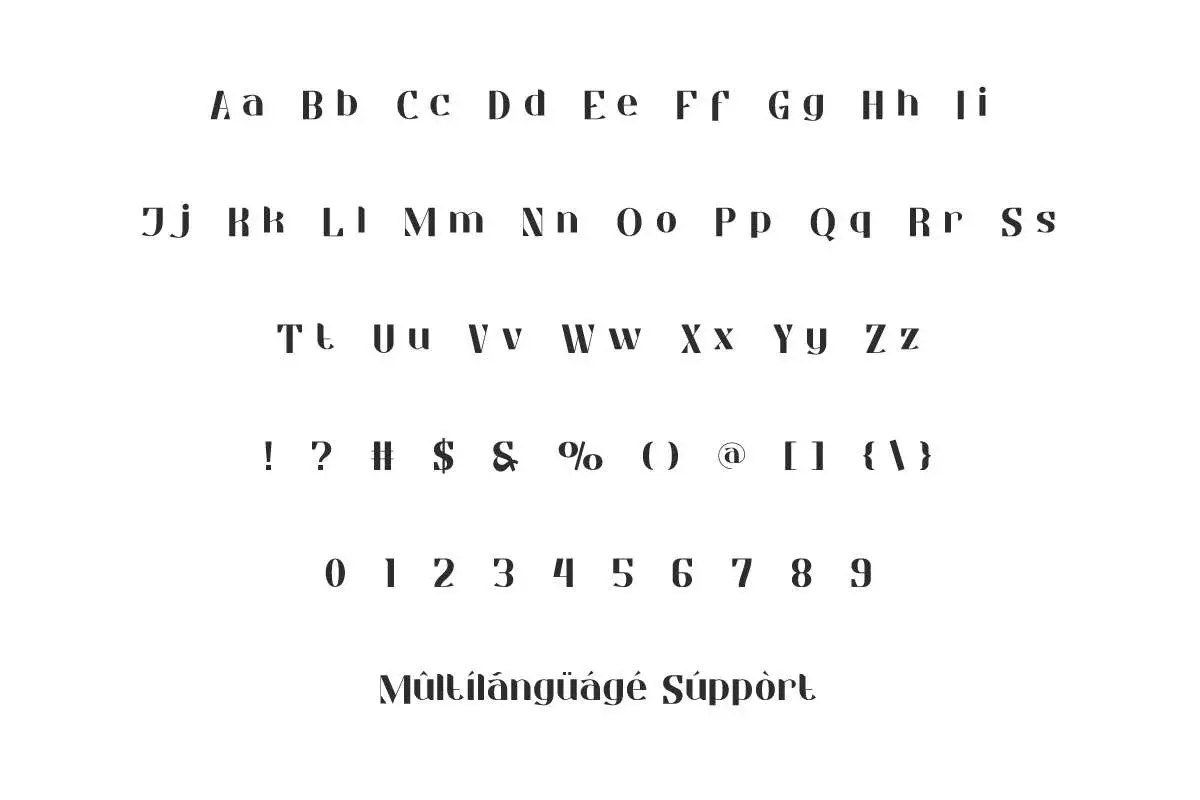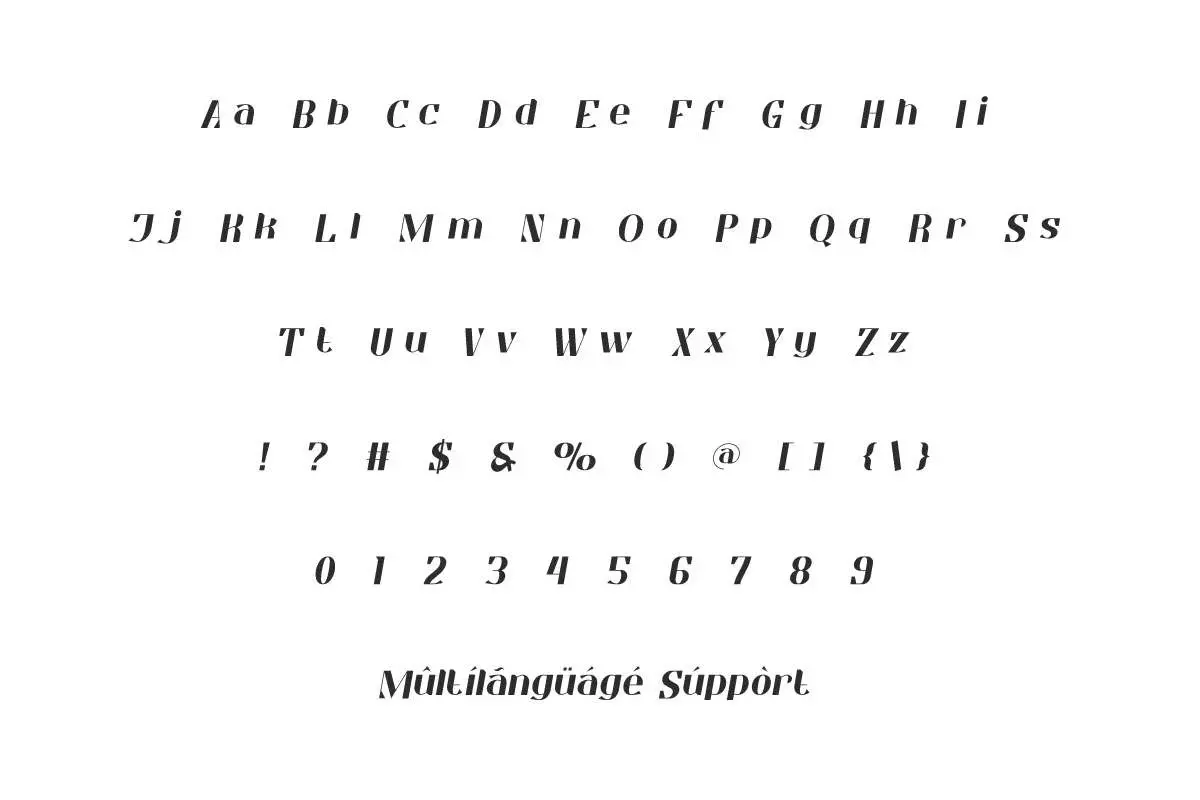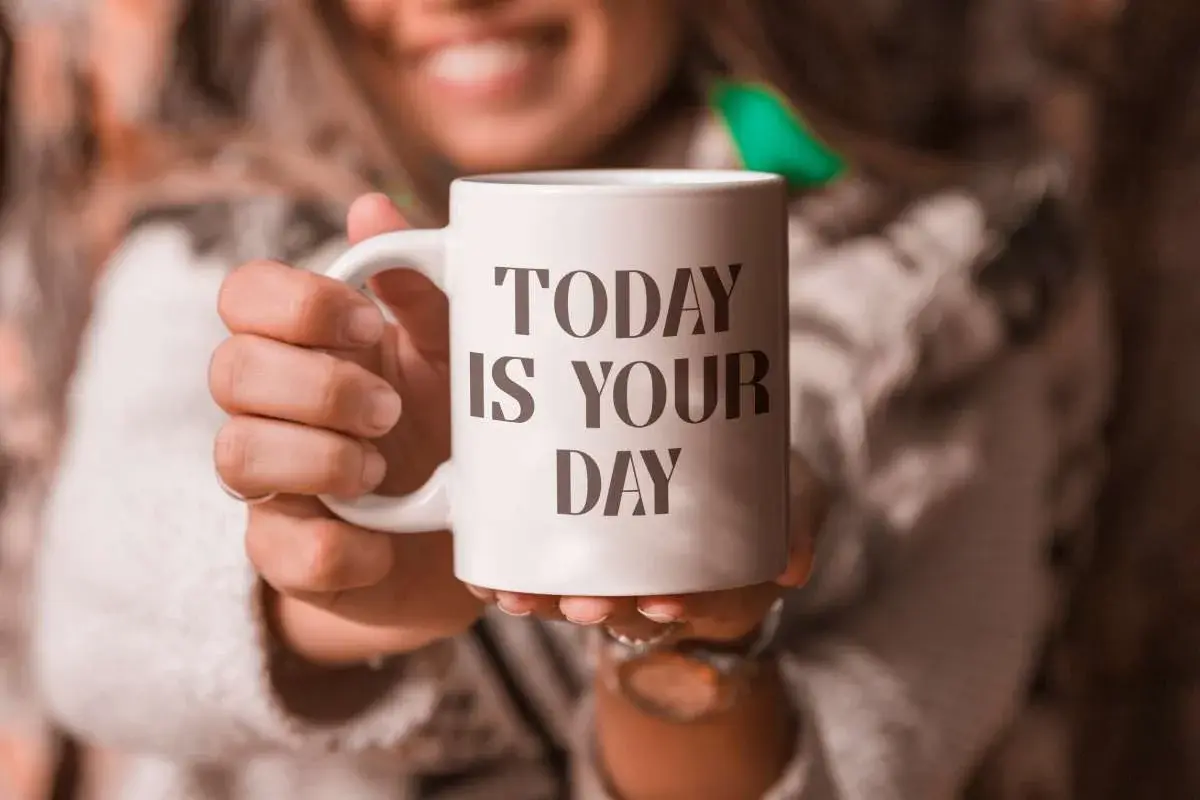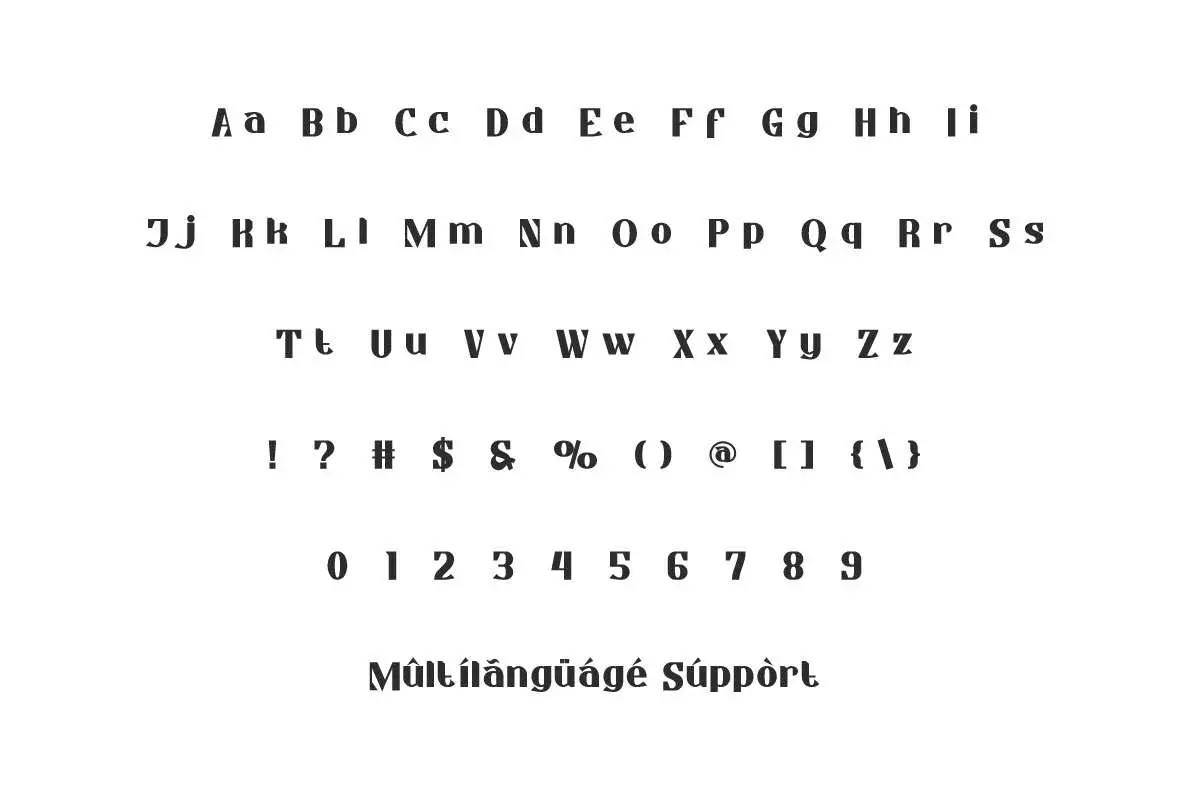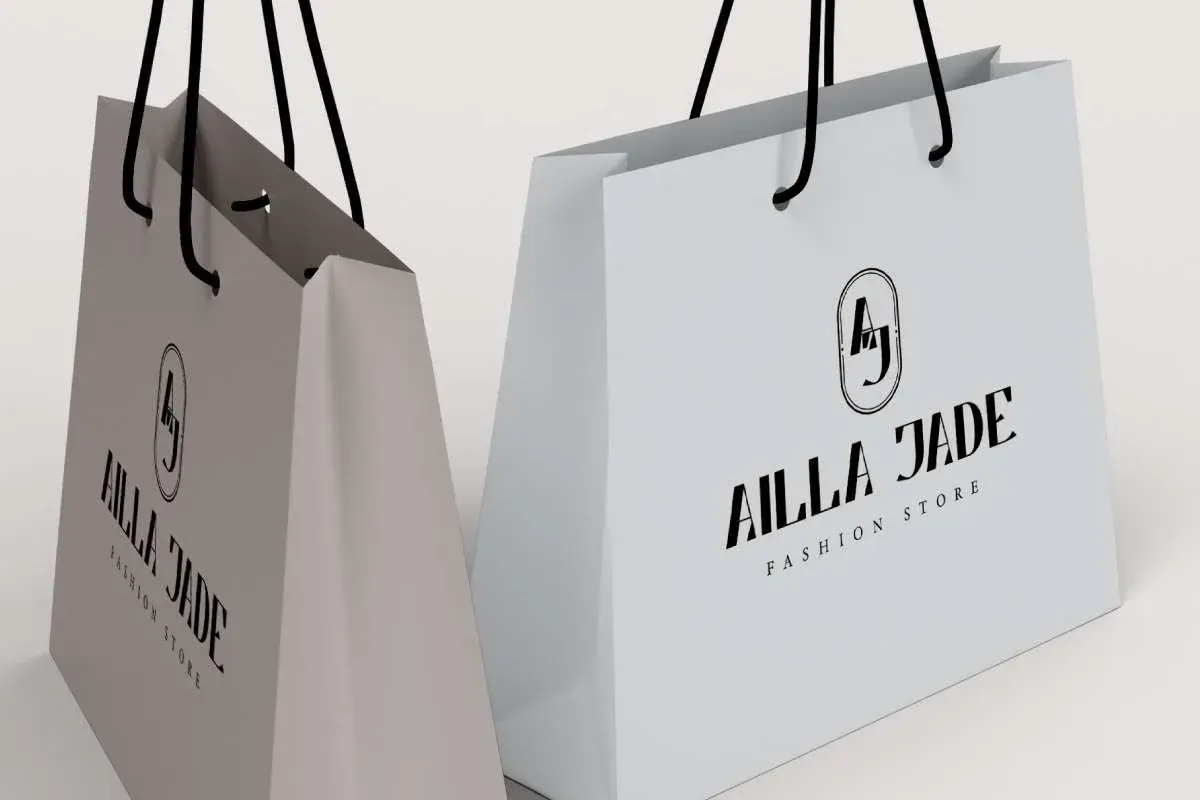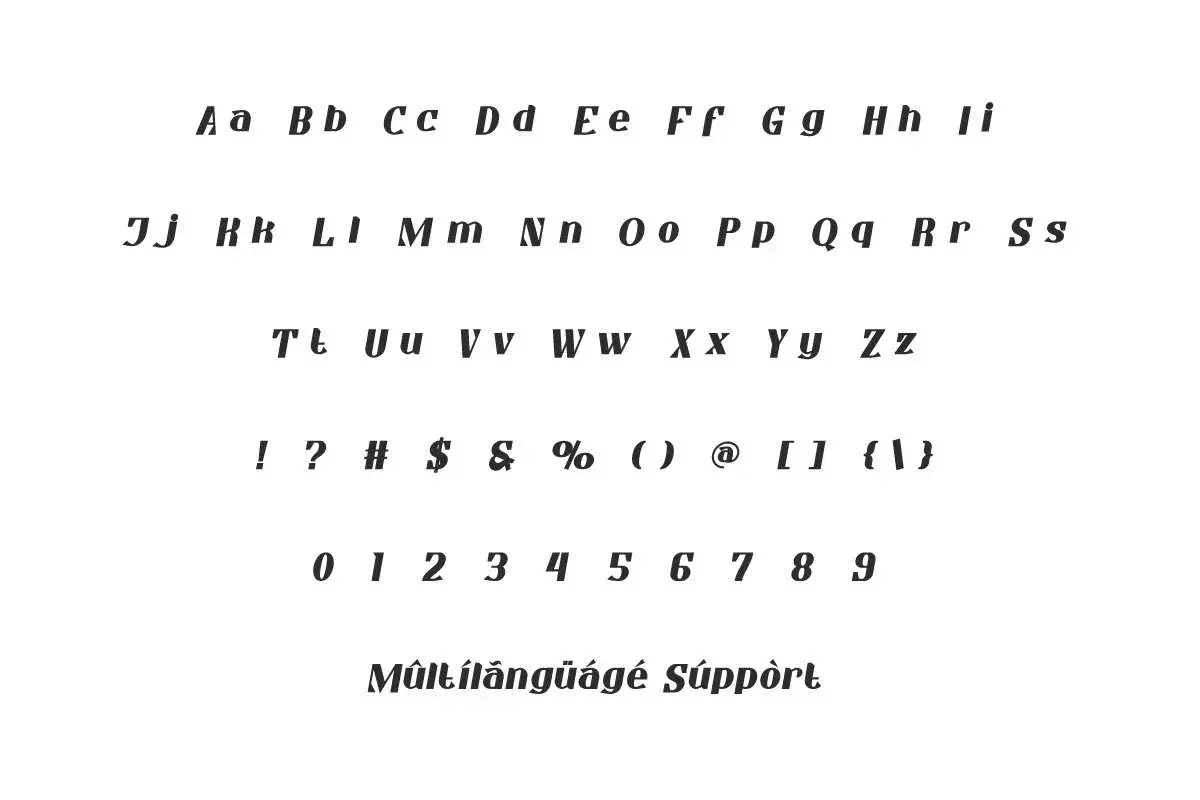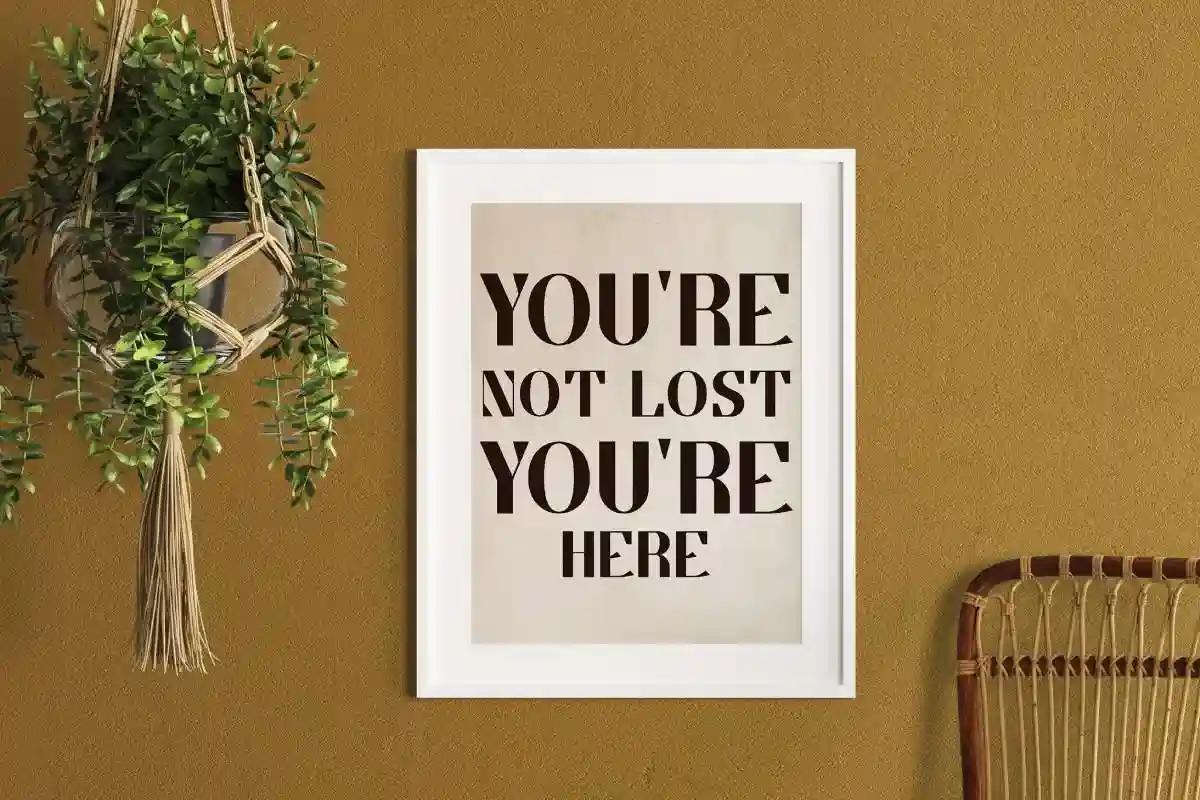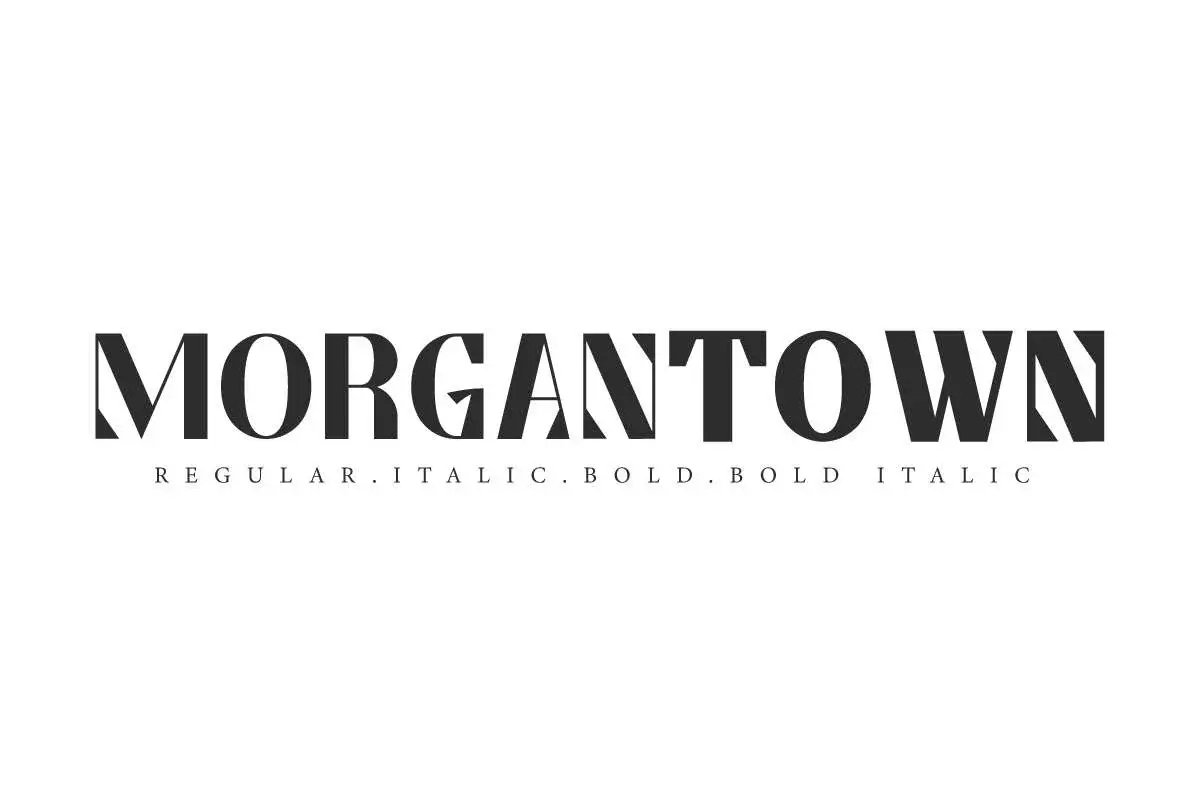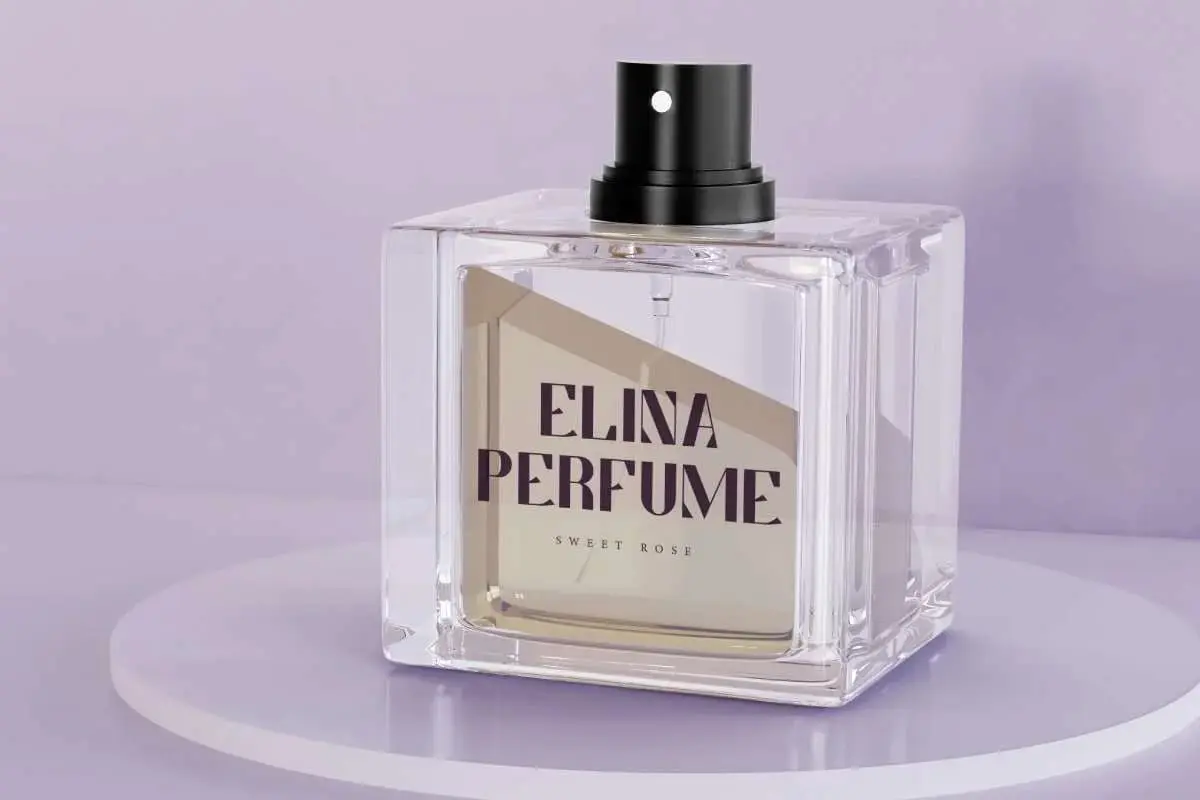
Morgantown Font is a fancy original font of a sans serif that brings out the classic vibes. This font type is the best choice for brand logo, photography, etc.
Morgantown Font is a fancy sans serif font that include 4 types: Regular, Bold, Bold Italic, and Italic. This typeface take the concept of a classic look but still has a modern style so that it creates a special type, now here to add to the beauty of your design, such as a brand logo, embossed design, headline, paper bag, product packaging, quote, sticker, watermark, and many more!
Morgantown Font comes with a full set of Uppercase and Lowercase Basic Characters, Number, Punctuation, Symbol. This font is perfect in writing and legibility so it will work well when paired with other fonts. Use this for your business industry such as craft, fashion, furniture, perfume brand, photography, pottery art, printing, restaurant, retail store, etc.
Morgantown Font comes with full set of Uppercase and Lowercase Basic Characters, Number, Punctuation, Symbol, Ligature, and also supports multilingual characters. Ready to use both on Windows machine or Mac with simple installations. It’s tested to work well in the Adobe Apps (Illustrator, Adobe InDesign, Adobe Photoshop) CorelDraw, and others. PUA Encode Characters means you can access all the glyphs and other additional characters easily – Fully accessible without additional design software.